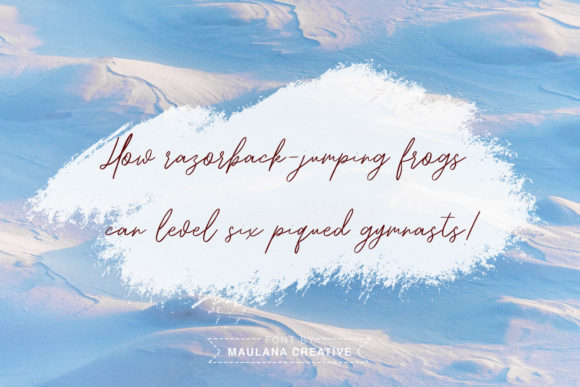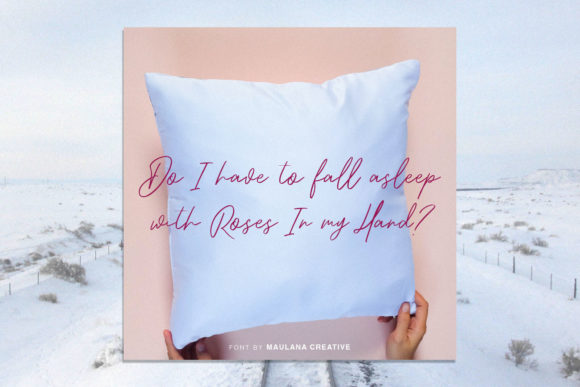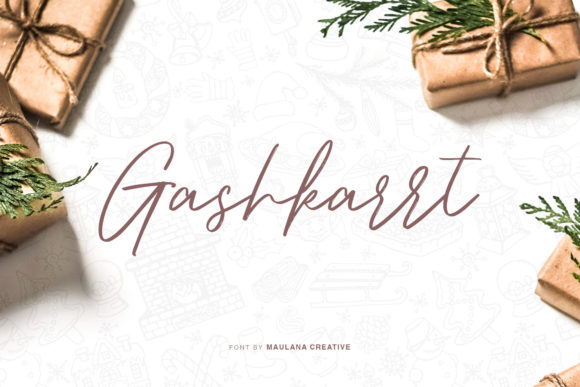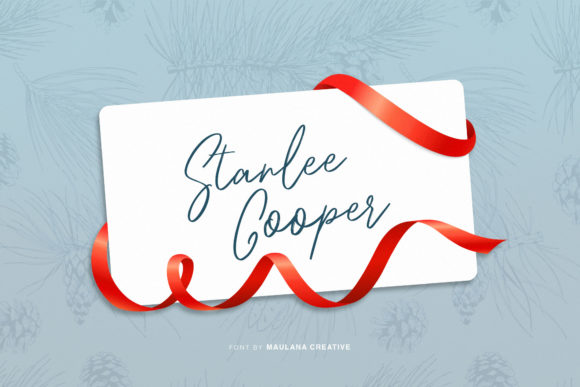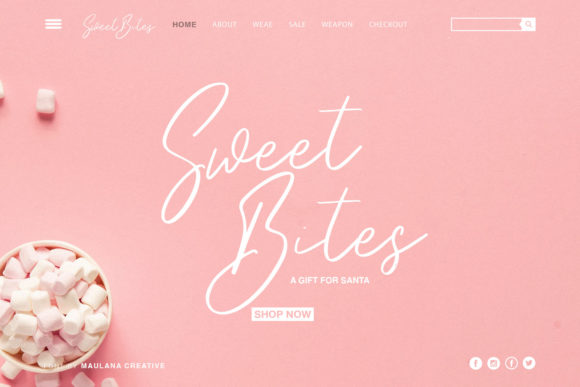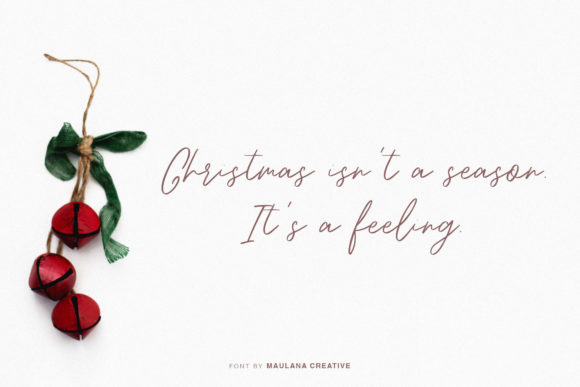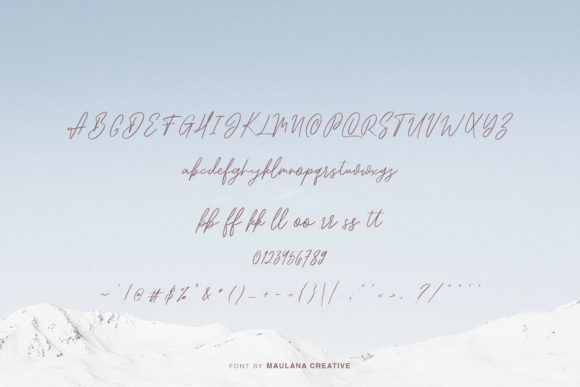
Snowhart Font
About Snowhart Font
Snowhart is a gorgeous script that will take any design project to the next level. Get inspired by its modern charm, and turn any design idea into masterpiece!